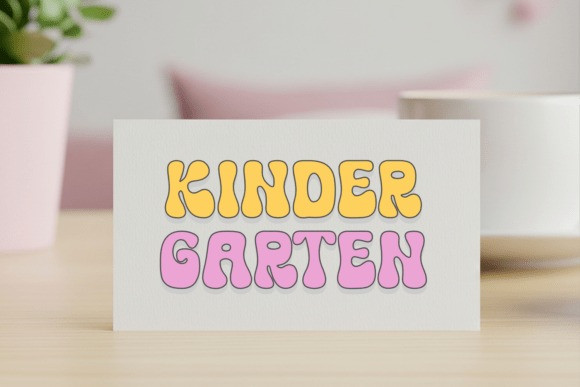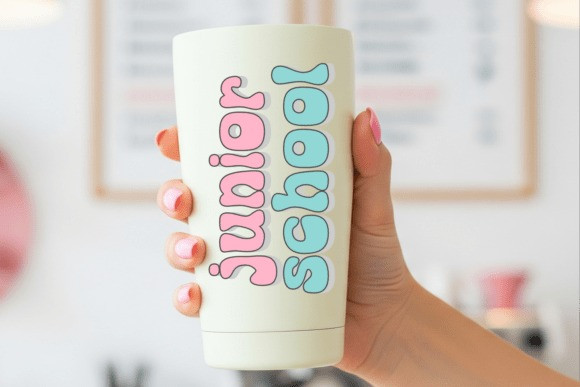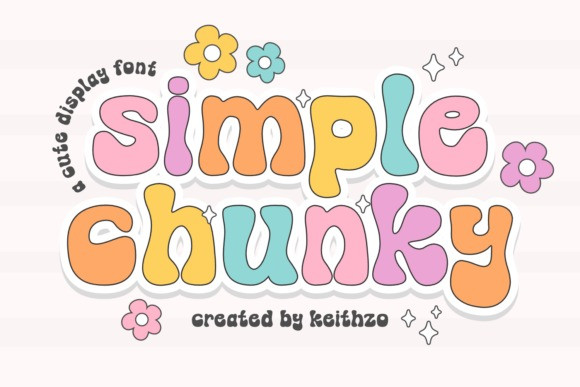
Simple Chunky Font
Simple Chunky Font is a bold and cheerful display fonts designed to bring maximum impact and a friendly touch to every creative project. Whether you are crafting a fun brand identity or looking for a standout headline, this typeface offers a modern yet timeless vibe that instantly captures attention and radiates positive energy in any design layout. This versatile fonts is the ultimate choice for high-demand merchandise like custom t-shirts, hoodies, and vibrant stickers that need a bold and professional personality.